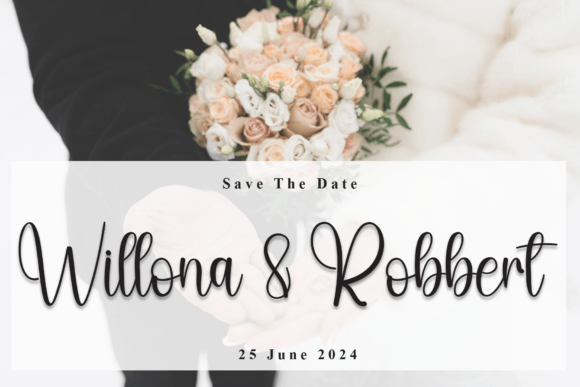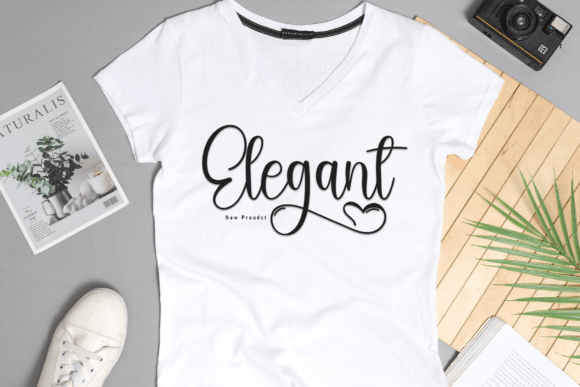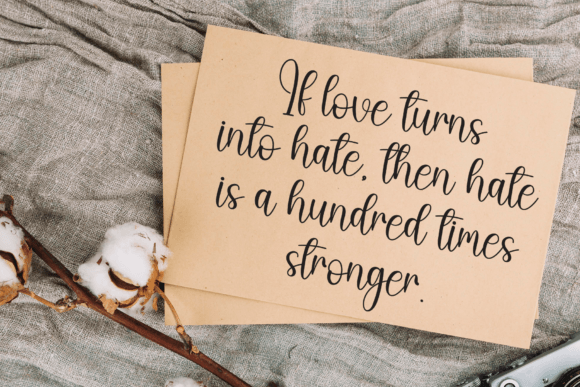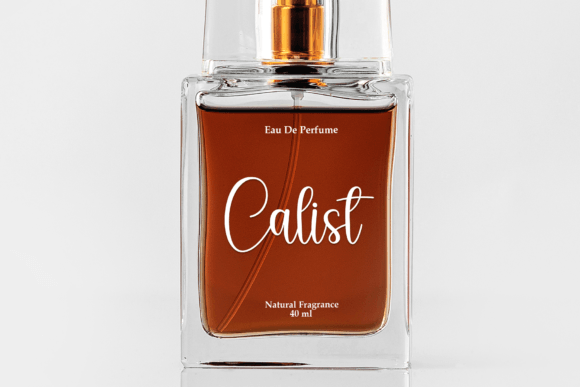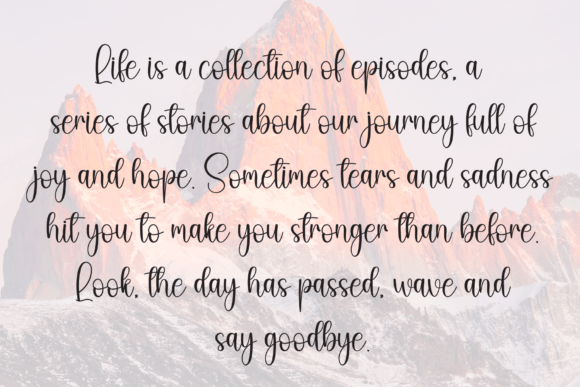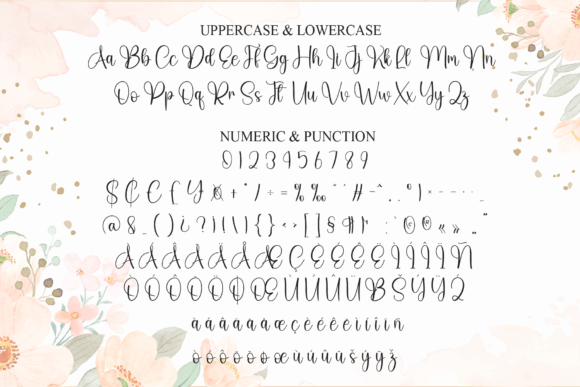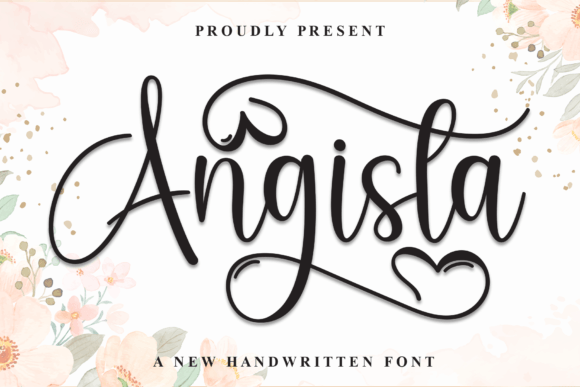
Introducing Angista Font: The Charming Handwritten Font with a Personal Touch
In the world of typography, fonts play a crucial role in conveying the tone and personality of a design. For designers and crafters looking to add a personal touch to their projects, Angista Font is a unique and charming handwritten font that stands out from the rest. With its special letters featuring heart-shaped endings, Angista Font is perfect for creating designs that exude warmth, playfulness, and whimsy.
What Makes Angista Font Special?
Angista Font is a one-of-a-kind handwritten font that boasts a distinctive feature: heart-shaped endings on its letters. This unique characteristic sets it apart from other fonts and gives it a charming, hand-crafted feel. The font’s playful and whimsical nature makes it ideal for a variety of design projects, from greeting cards and invitations to branding and packaging.
Key Features of Angista Font
- Unique Handwritten Style: Angista Font features a beautiful, handwritten style that adds a personal touch to any design.
- Special Heart-Shaped Endings: The font’s distinctive heart-shaped endings on letters make it stand out and give it a charming feel.
- Playful and Whimsical: Angista Font is perfect for creating designs that are playful, whimsical, and fun.
- Versatile: The font can be used for a wide range of design projects, from digital designs to print materials.
Use Cases for Angista Font
Angista Font is a versatile font that can be used for various design projects, including:
- Greeting Cards and Invitations: Add a personal touch to your greeting cards and invitations with Angista Font’s charming and playful style.
- Branding and Packaging: Use Angista Font to create unique and eye-catching branding and packaging designs that stand out from the competition.
- Digital Designs: Angista Font is perfect for digital designs, such as social media graphics, blog posts, and website headers.
- Crafting and Scrapbooking: Crafters and scrapbookers can use Angista Font to add a personal touch to their projects, such as journal cards, tags, and titles.
Tips for Using Angista Font
To get the most out of Angista Font, here are some tips to keep in mind:
- Pair with Neutral Backgrounds: Pair Angista Font with neutral backgrounds to make the font stand out and showcase its unique features.
- Experiment with Colors: Experiment with different colors to find the perfect combination that complements the font’s playful and whimsical nature.
- Use for Headlines and Titles: Use Angista Font for headlines and titles to add a personal touch and create visual interest.
Angista Font is a unique and charming handwritten font that is perfect for designers and crafters looking to add a personal touch to their designs. With its special heart-shaped endings and playful style, Angista Font is versatile and can be used for a wide range of design projects. Whether you’re creating greeting cards, branding and packaging, or digital designs, Angista Font is sure to make your designs stand out.